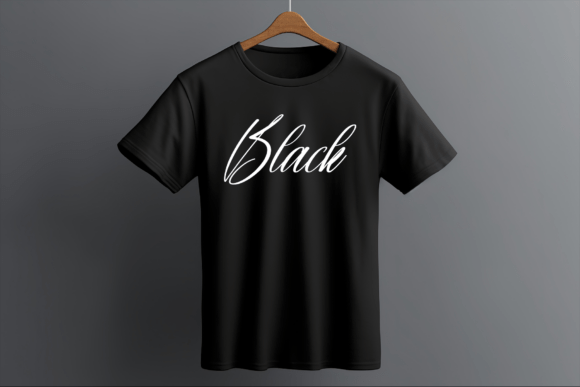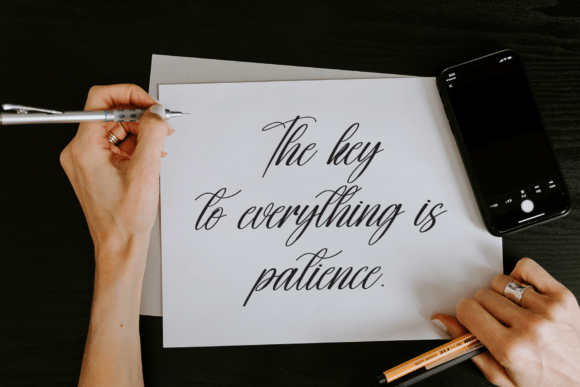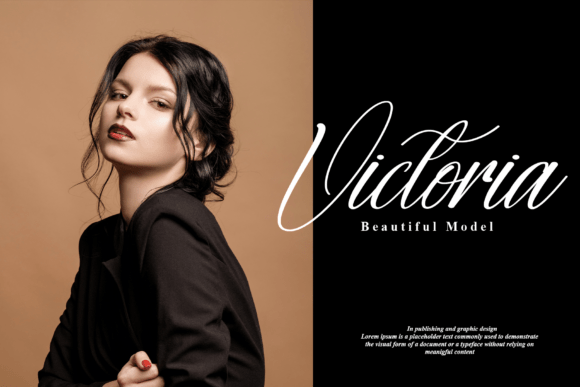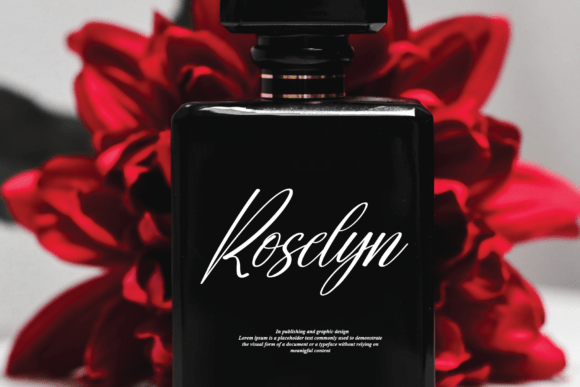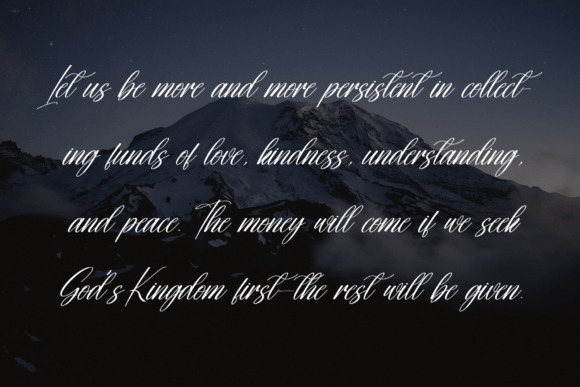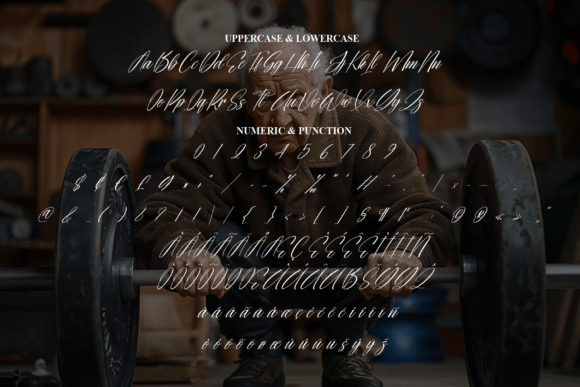
Unlock the Power of Luxury Typography with Heavy Font
In the world of design, typography plays a crucial role in conveying the tone and personality of a brand. For those seeking to elevate their creative projects with a touch of sophistication and high-end flair, Heavy font is the ultimate solution. This luxury typeface is specifically designed to bring a sense of strength and elegance to handwriting, making it perfect for a wide range of applications, from branding high-performance gear to designing elite event invitations.
The Art of Heavy Font
Heavy font is more than just a typeface – it’s an experience. With its bold, confident lines and precision-crafted letterforms, Heavy exudes a sense of power and refinement. Whether you’re looking to create a lasting impression with a luxury logo or add a touch of high-end sophistication to your editorial content, Heavy font is the perfect choice. Its unique aesthetic is unmistakable, conveying a sense of strength and elegance that is sure to leave a lasting impression on your audience.
Ideal Applications for Heavy Font
- Luxury Logos: Make a bold statement with your brand identity using Heavy font. Its confident, high-end aesthetic is perfect for luxury brands seeking to convey a sense of sophistication and refinement.
- High-Fashion Editorial Headers: Add a touch of glamour to your editorial content with Heavy font. Its elegant, refined lines are perfect for high-fashion publications, designer profiles, and more.
- Artisanal Packaging: Elevate your product packaging with Heavy font. Its unique blend of strength and elegance is sure to make your products stand out on store shelves.
- Signature Watermarks: Add a touch of luxury to your digital content with Heavy font. Use it to create signature watermarks that convey a sense of sophistication and refinement.
Why Choose Heavy Font?
- Unmistakable Aesthetic: Heavy font has a unique, unmistakable aesthetic that is sure to elevate your creative projects. Its blend of strength and elegance is perfect for luxury brands and high-end applications.
- Versatility: Heavy font is incredibly versatile, making it suitable for a wide range of applications, from branding and editorial content to packaging and digital design.
- High-Quality Design: Heavy font is precision-crafted to deliver high-quality results. Its bold, confident lines and refined letterforms ensure a professional finish every time.
Tips for Using Heavy Font
- Use it Sparingly: Heavy font is a bold, attention-grabbing typeface. Use it sparingly to create a lasting impression, rather than overwhelming your audience.
- Experiment with Color: Heavy font looks stunning in a range of colors. Experiment with different hues and combinations to find the perfect fit for your creative project.
- Pair it with Contrasting Fonts: Heavy font pairs beautifully with contrasting fonts. Try pairing it with a clean, sans-serif font to create a striking visual contrast.
In conclusion, Heavy font is the ultimate luxury typeface for designers and crafters seeking to elevate their creative projects with a touch of sophistication and high-end flair. Its unique blend of strength and elegance makes it perfect for a wide range of applications, from luxury logos and high-fashion editorial headers to artisanal packaging and signature watermarks. With its unmistakable aesthetic, versatility, and high-quality design, Heavy font is sure to become a staple in your design toolkit.